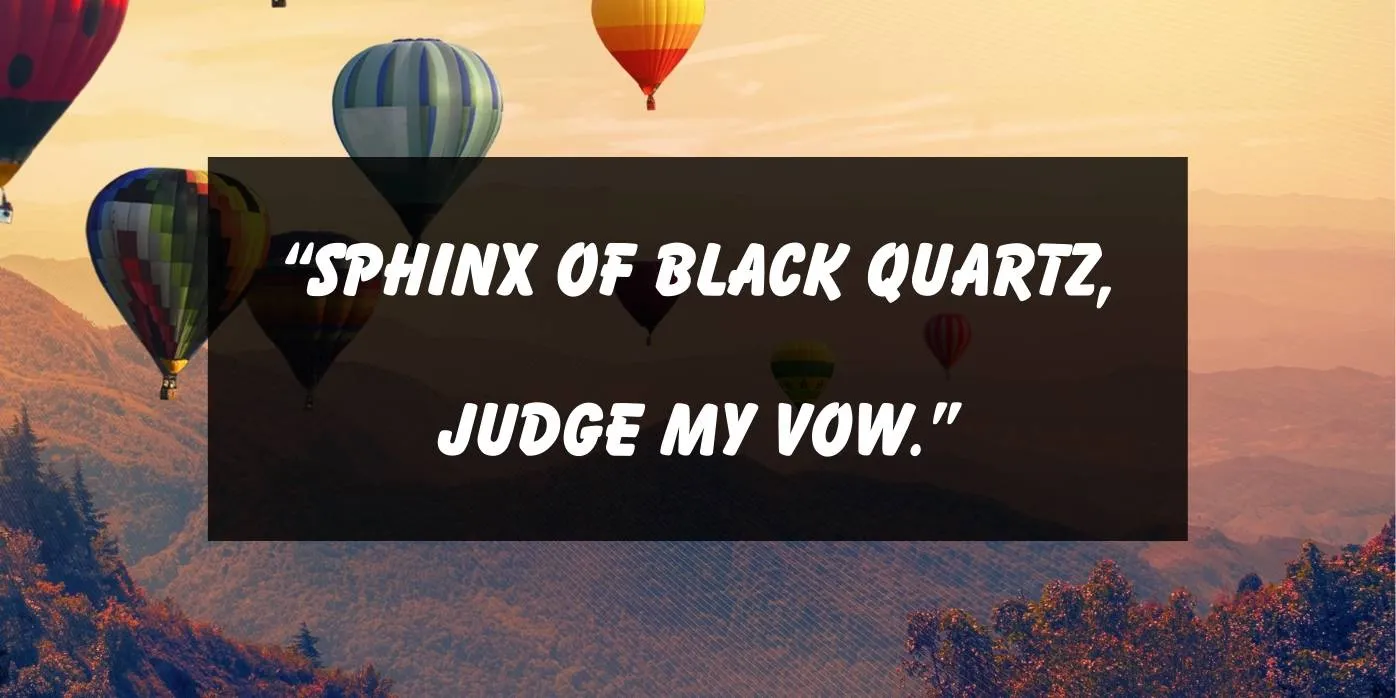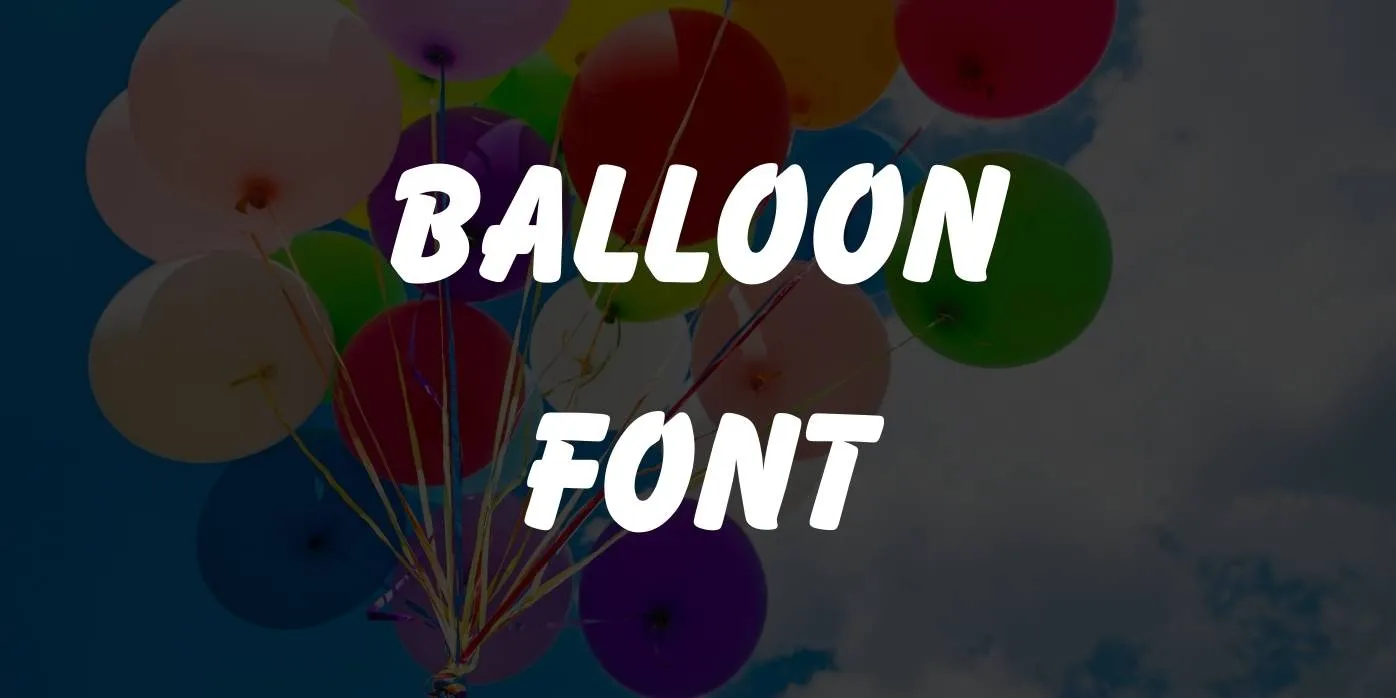
Balloon Font
Today, we are going to discuss a marvelous typeface that goes by the name Balloon Font. This cute typeface was developed by a very intelligent and elegant designer named Max R. Kaufmann. It belongs to the Script font family.
This classy typeface includes three classic styles, these styles are bold. Extra bold and light. In the year 1939, this typeface was designed and released. This glorious typeface supports more than 56 languages.
This stunning typeface was designed for the logo Nickelodeon Cartoon channel. It is also perfect for use in different Tv Shows and films. It is best for use in Photoshop. It is well specified for the CSS and SVG.